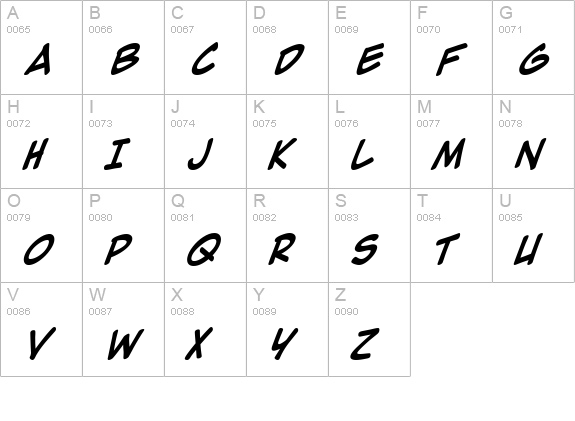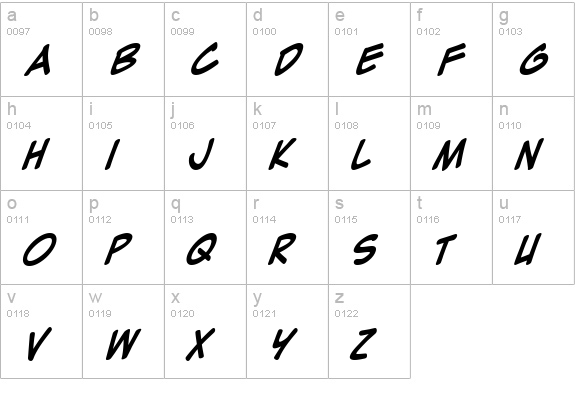
Zap Raygun V2.0 Italic is a distinctive, italic variant in the Zap typeface family \xE2\x80\x94 well suited to design and typography projects.
Introducing Zap Raygun V2.0 - a futuristic and dynamic typeface designed to make your designs stand out. With its sleek and stylish Italic font style, Zap Raygun V2.0 exudes a sense of modernity and innovation. This versatile font is perfect for a wide range of projects, whether it's branding, advertising, or digital design. And the best part? Zap Raygun V2.0 is completely free! Yes, you read that right - this cutting-edge font is freely available to download at FontsMarket.com. So go ahead and add a touch of futuristic flair to your designs with Zap Raygun V2.0 Italic font.